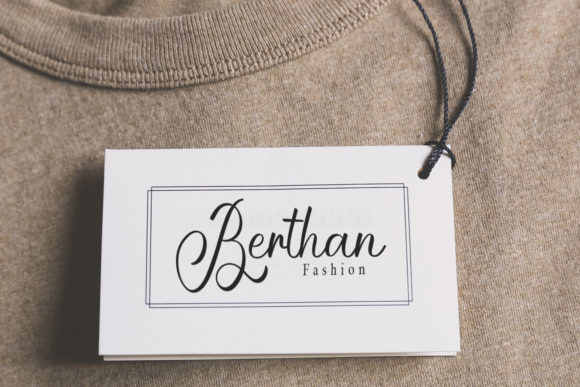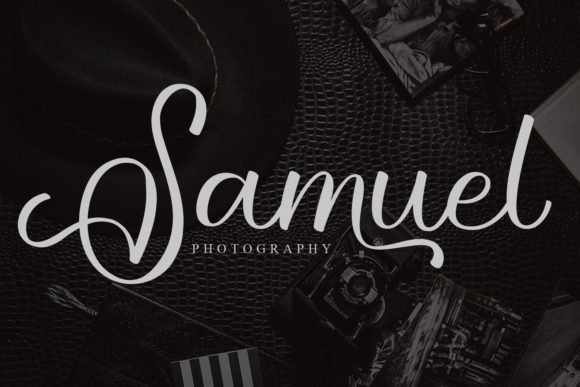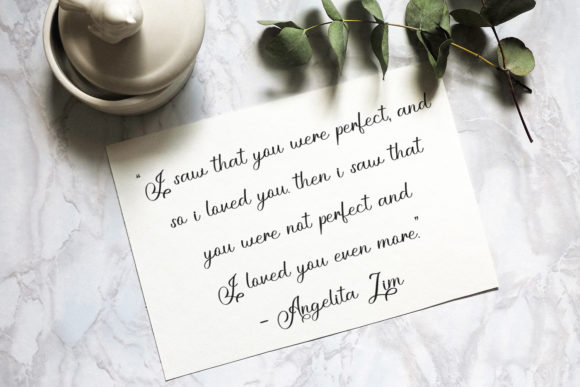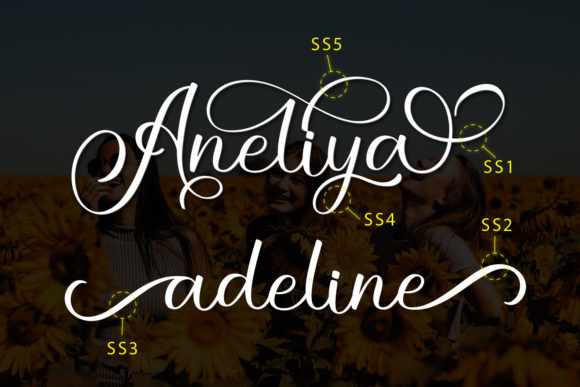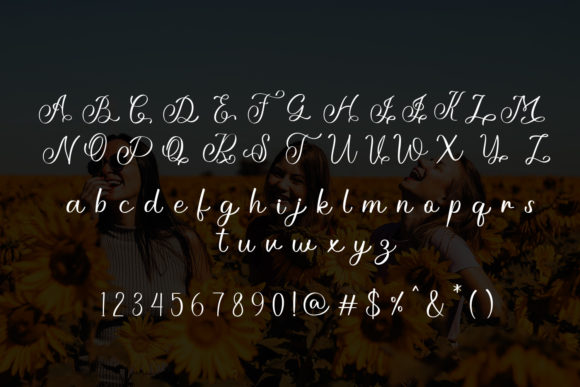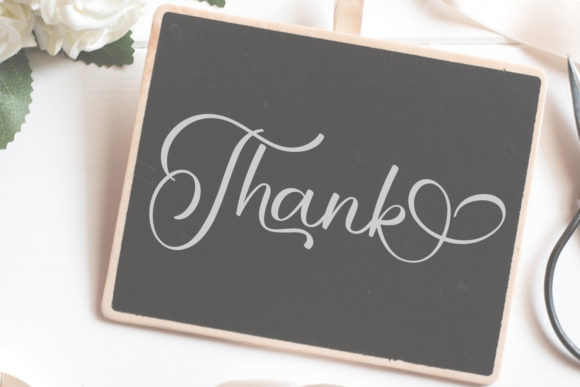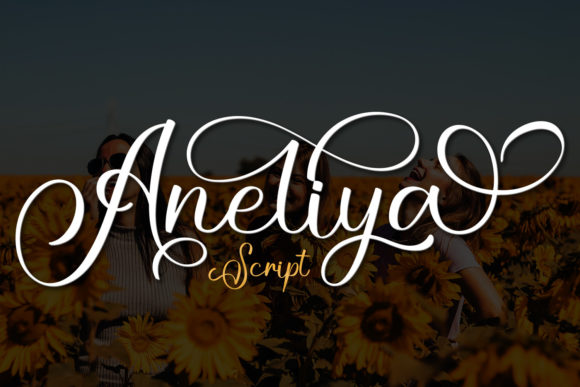
Introducing Aneliya Font: Elevate Your Designs with Luxury and Elegance
Are you a designer or crafter looking for a font that adds a touch of luxury and sophistication to your projects? Look no further than Aneliya Font, a beautiful light handwritten font that is sure to make your designs stand out. With its unique feel and stunning impact, Aneliya is the perfect choice for anyone looking to elevate their designs and add a spark of elegance.
What Makes Aneliya Font So Special?
Aneliya Font is a one-of-a-kind font that boasts a range of features that set it apart from other fonts on the market. Here are just a few reasons why Aneliya is a must-have for designers and crafters:
- Unique and Luxurious Feel: Aneliya Font has a distinct light handwritten feel that adds a touch of luxury to any design project. Its elegant and sophisticated style makes it perfect for high-end designs, branding, and marketing materials.
- PUA Encoded for Easy Access: Aneliya Font is PUA (Private Use Area) encoded, which means that you can access all glyphs and swashes with ease. This feature makes it simple to use the font in a variety of design applications, including Adobe Illustrator and Photoshop.
- Stunning Impact: Aneliya Font is designed to make a statement. Its unique feel and elegant style ensure that your designs will stand out from the crowd and leave a lasting impression on your audience.
Perfect for a Range of Design Projects
Aneliya Font is versatile and can be used in a variety of design projects, including:
- Branding and Logo Design: Aneliya Font is perfect for creating luxury brands and logos that exude elegance and sophistication.
- Marketing Materials: Use Aneliya Font to create stunning marketing materials, such as brochures, flyers, and business cards, that will help you stand out from the competition.
- Wedding and Event Design: Aneliya Font is a popular choice for wedding and event designers, adding a touch of luxury and romance to invitations, programs, and other design elements.
- Packaging Design: Aneliya Font can be used to create beautiful and eye-catching packaging designs that will help your products stand out on store shelves.
Tips for Using Aneliya Font
Here are a few tips for getting the most out of Aneliya Font:
- Experiment with Different Sizes and Colors: Aneliya Font looks great in a range of sizes and colors. Experiment with different combinations to find the one that works best for your design.
- Pair with Other Fonts: Aneliya Font pairs well with other fonts, including serif and sans-serif fonts. Try pairing it with a bold font for a striking contrast.
- Use Swashes and Glyphs: Take advantage of Aneliya Font’s PUA encoding and use the swashes and glyphs to add a touch of elegance and sophistication to your designs.
Aneliya Font is a beautiful and luxurious light handwritten font that is perfect for designers and crafters looking to elevate their designs. With its unique feel, stunning impact, and PUA encoding, Aneliya is a must-have for anyone looking to add a touch of elegance and sophistication to their design projects. Whether you’re working on branding, marketing materials, wedding design, or packaging, Aneliya Font is the perfect choice.